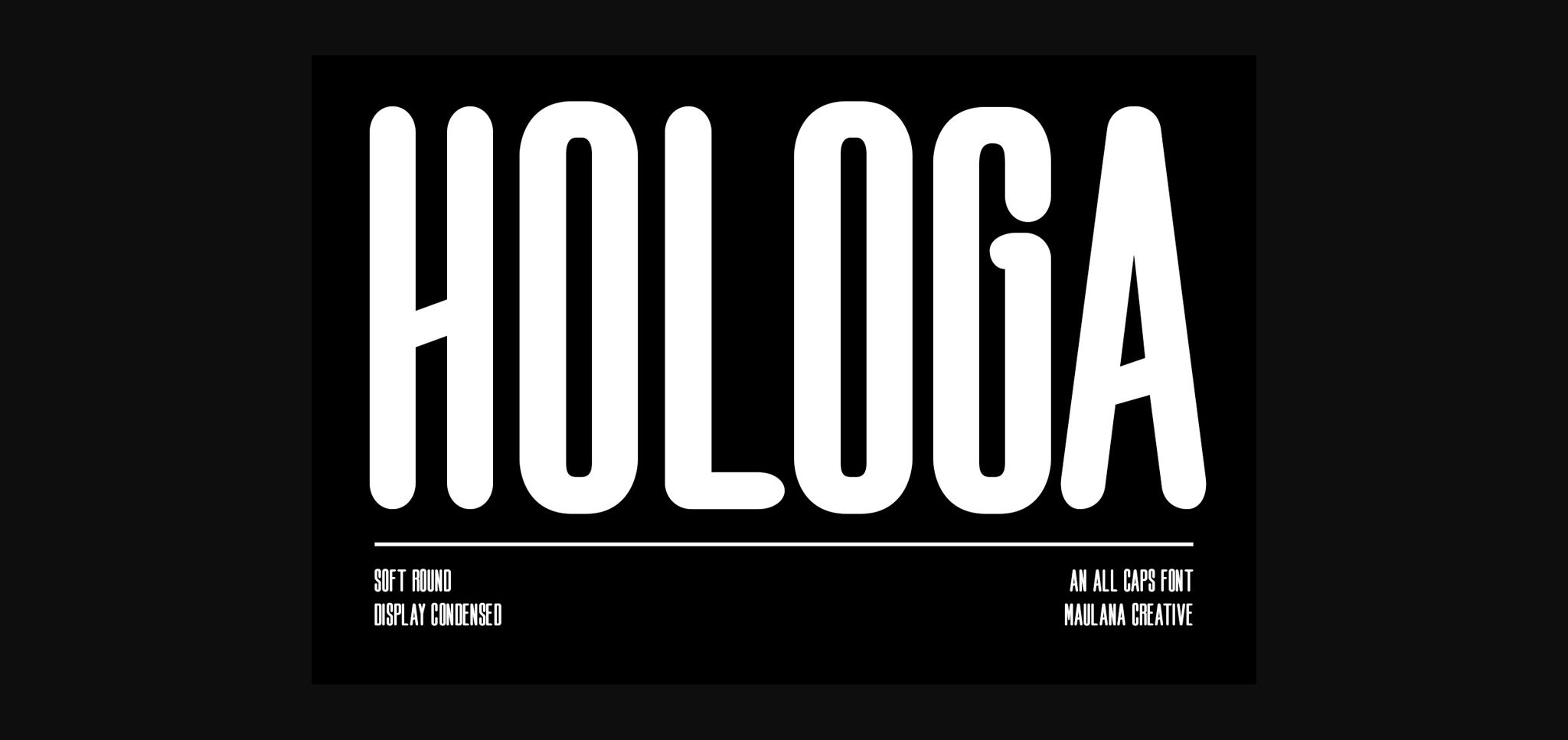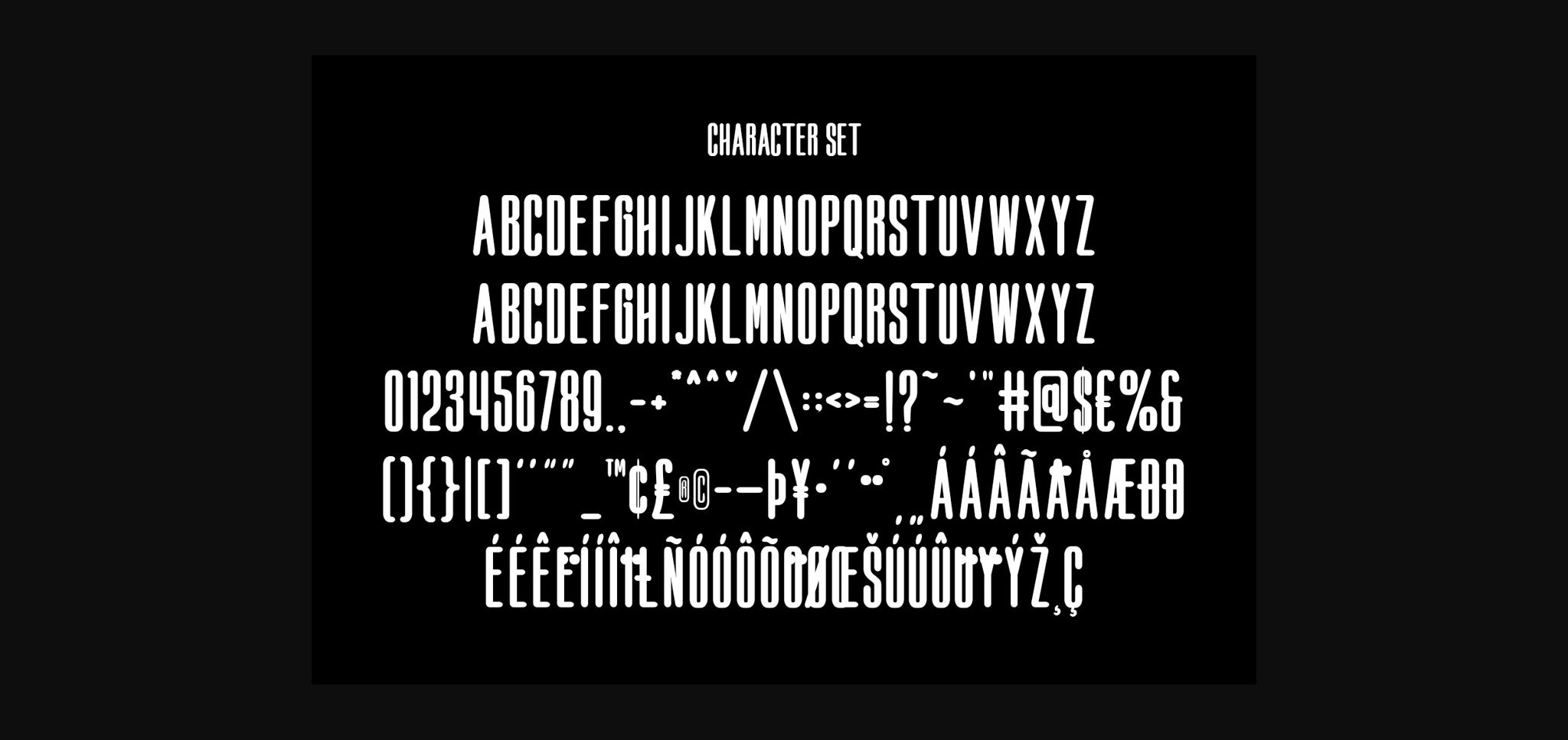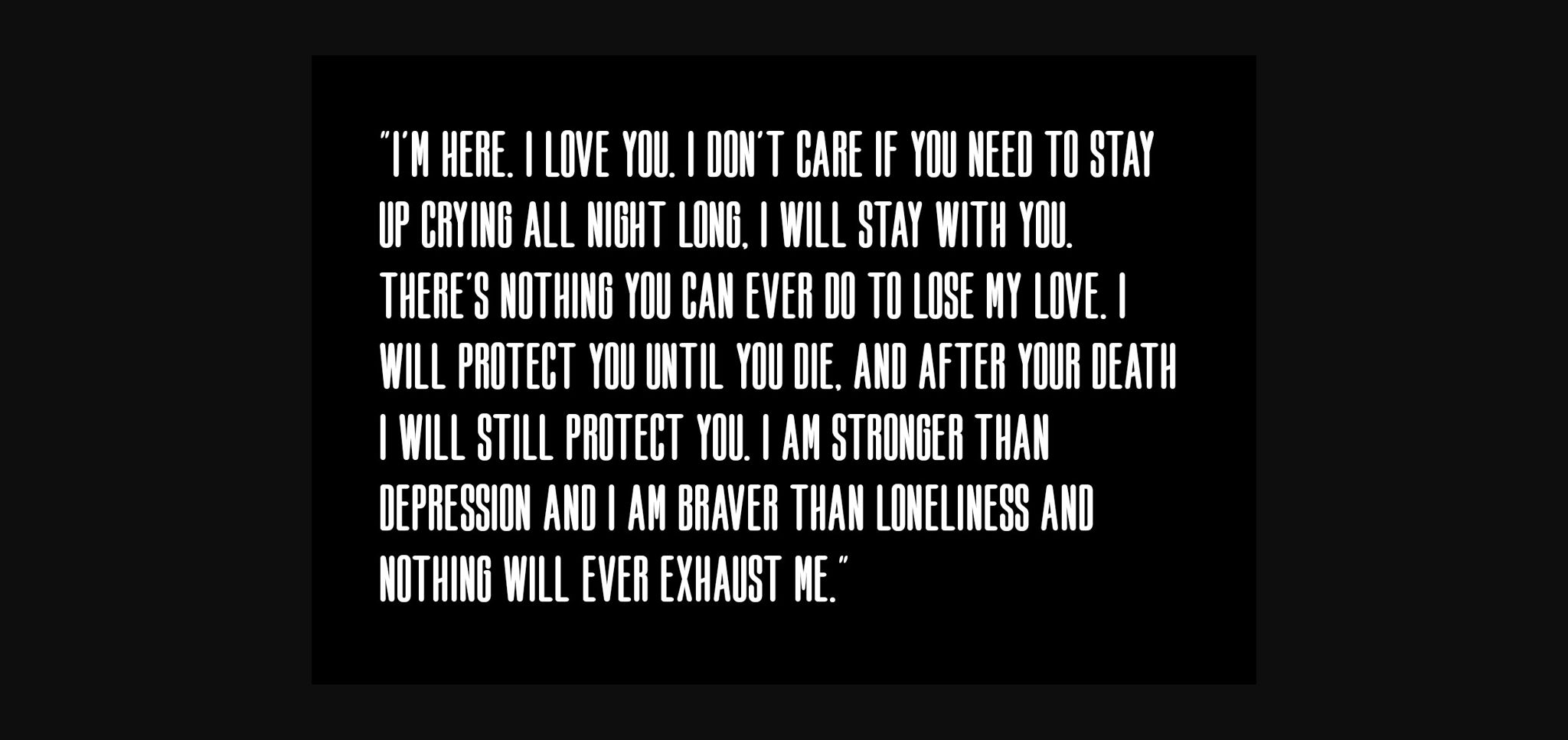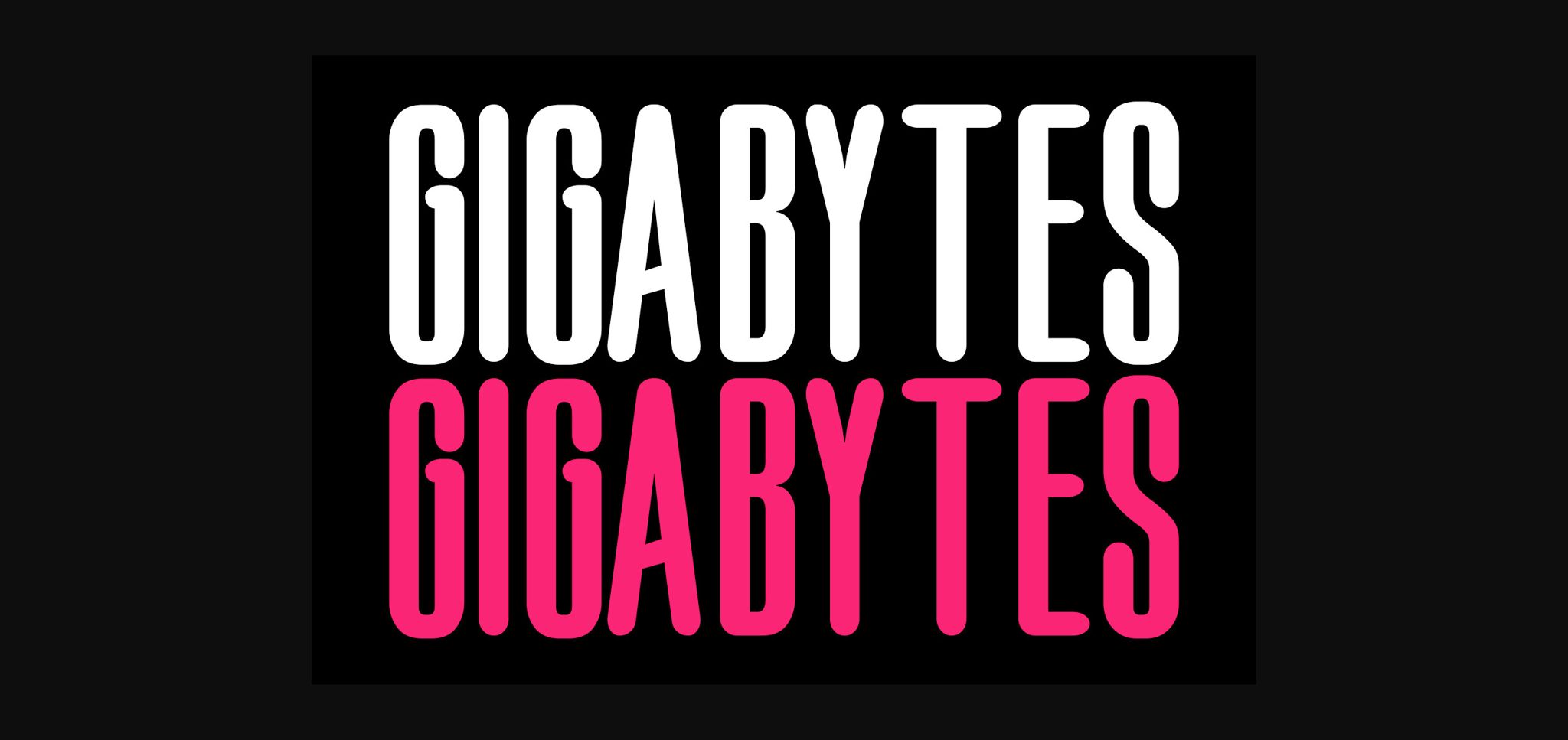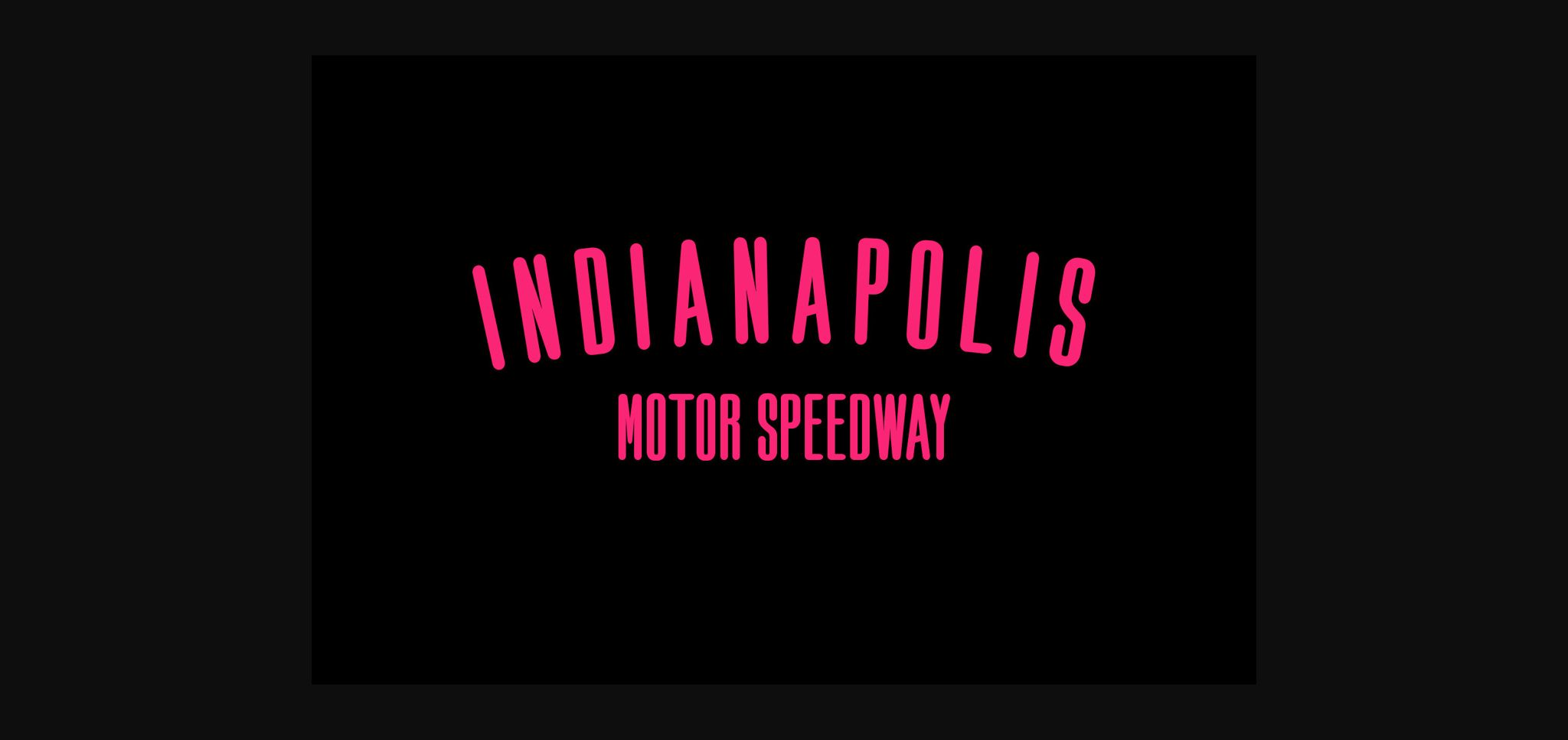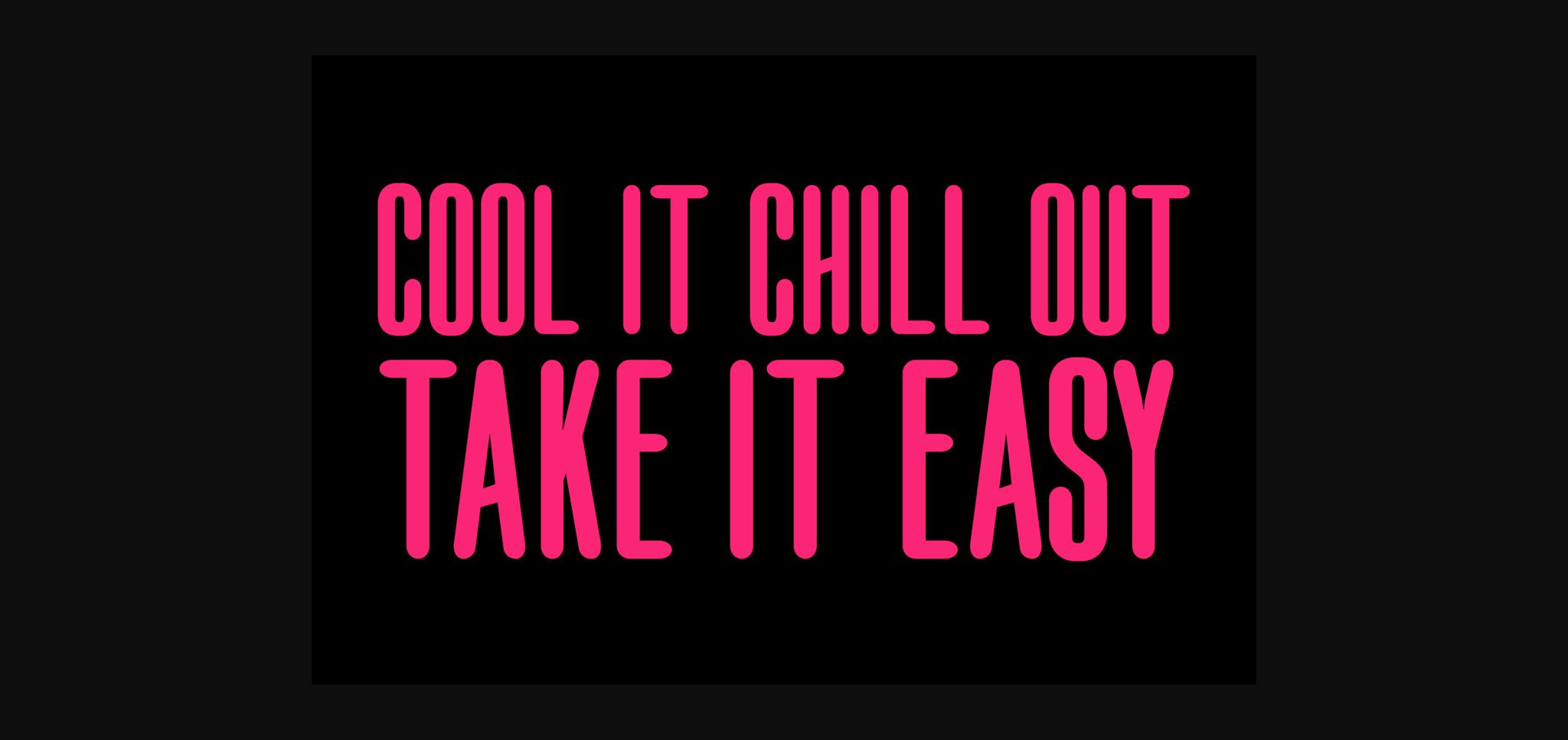
Hologa Font
About Hologa Font
Hologa is a condensed all-caps sans serif font. Masterfully designed to become a true favorite, this font has the potential to bring each of your creative ideas to the highest level!